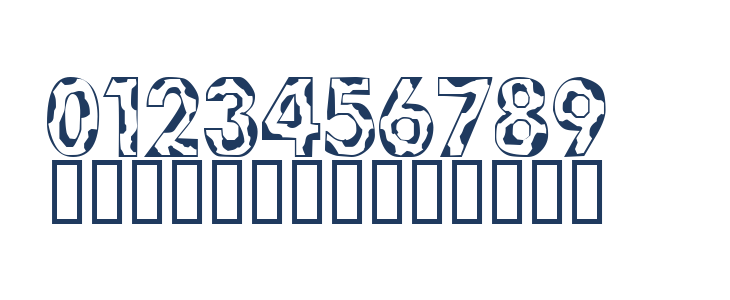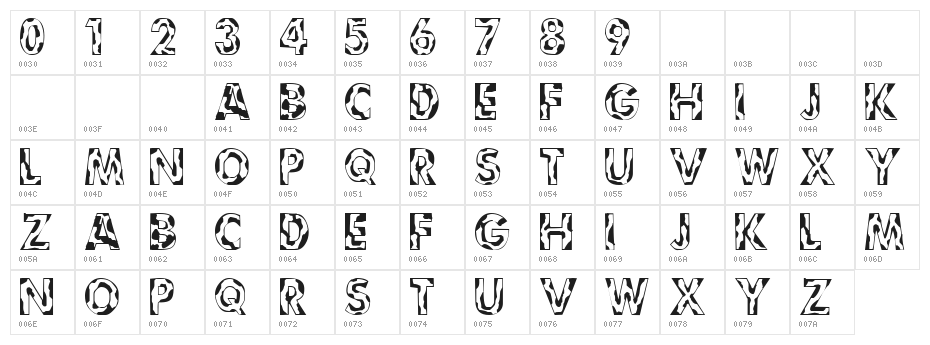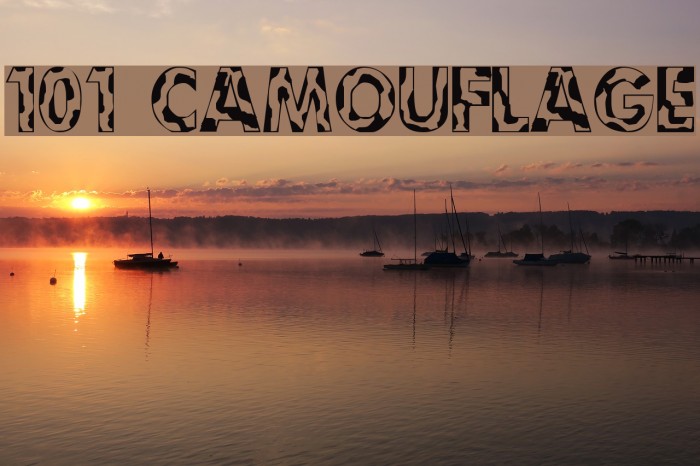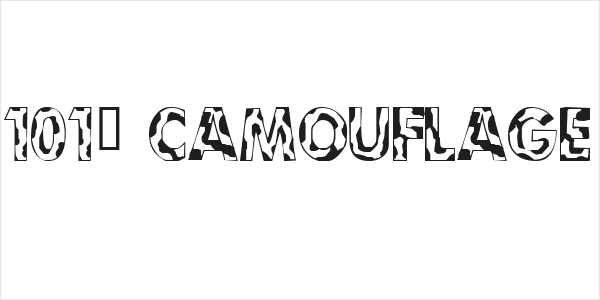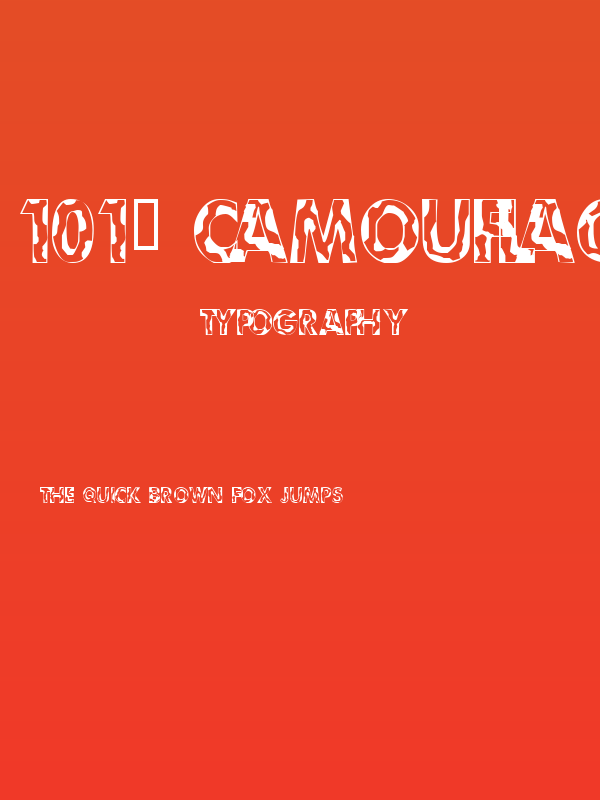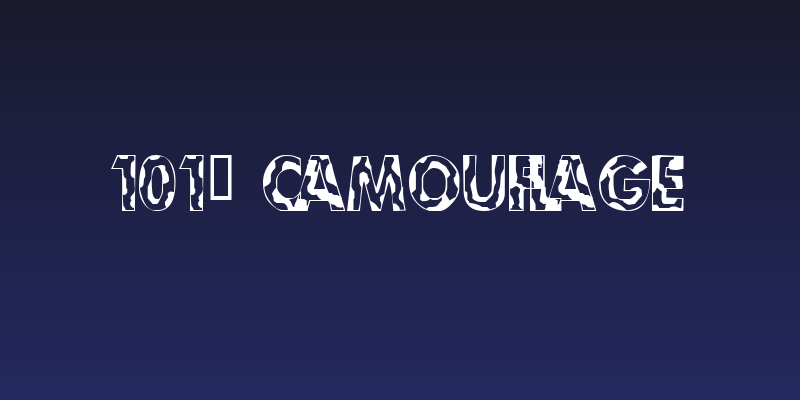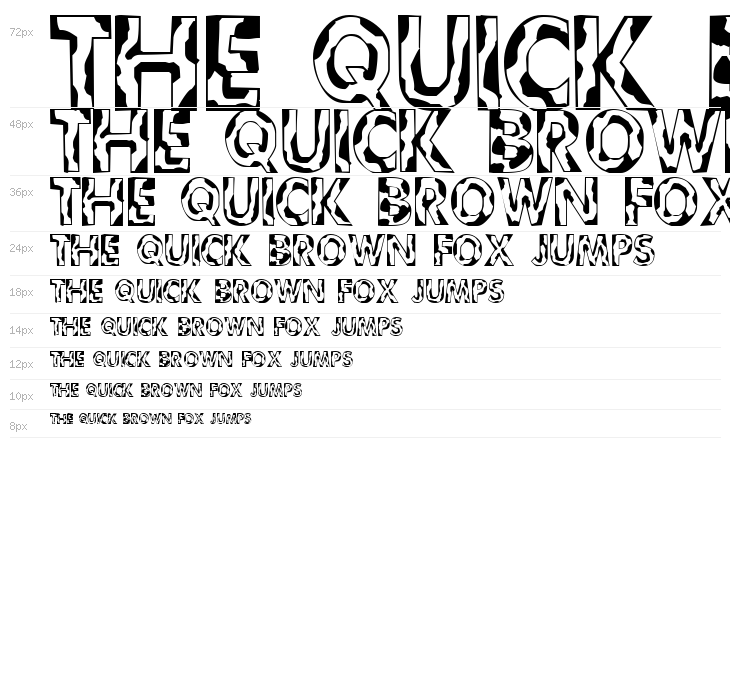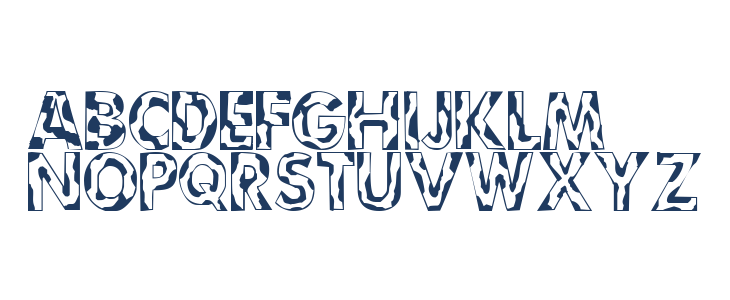
101! Camouflage Font
101! Camouflage Description
This font features a bold and striking camouflage pattern within each character, creating a unique and eye-catching design. The uppercase letters are robust and solid, with a playful yet structured appearance. The camouflage pattern adds a dynamic and adventurous feel, making it ideal for projects that require a bold statement. The numbers and special characters maintain the same design consistency, ensuring a cohesive look across all text elements. The font's distinctive style is perfect for creative projects that aim to stand out.
Proposed ProjectsIdeal for military-themed designs, outdoor adventure branding, children's book covers, and promotional materials for events.